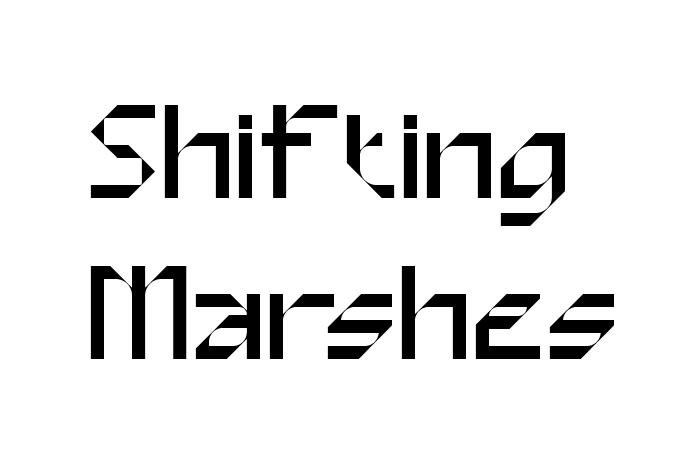
Minerva Bold
Introducing the modern Minerva Bold Font, is a cool and modern techno looking display Font This font is ideal for writing web designs, business cards, or pretty much anything else that requires a unique touch, this font designed by Neale Davidson is available for free download and personal use.
Font name Minerva Bold
Font designer Neale Davidson
Font Family Minerva
Font Style Bold
Typeface classification Techno